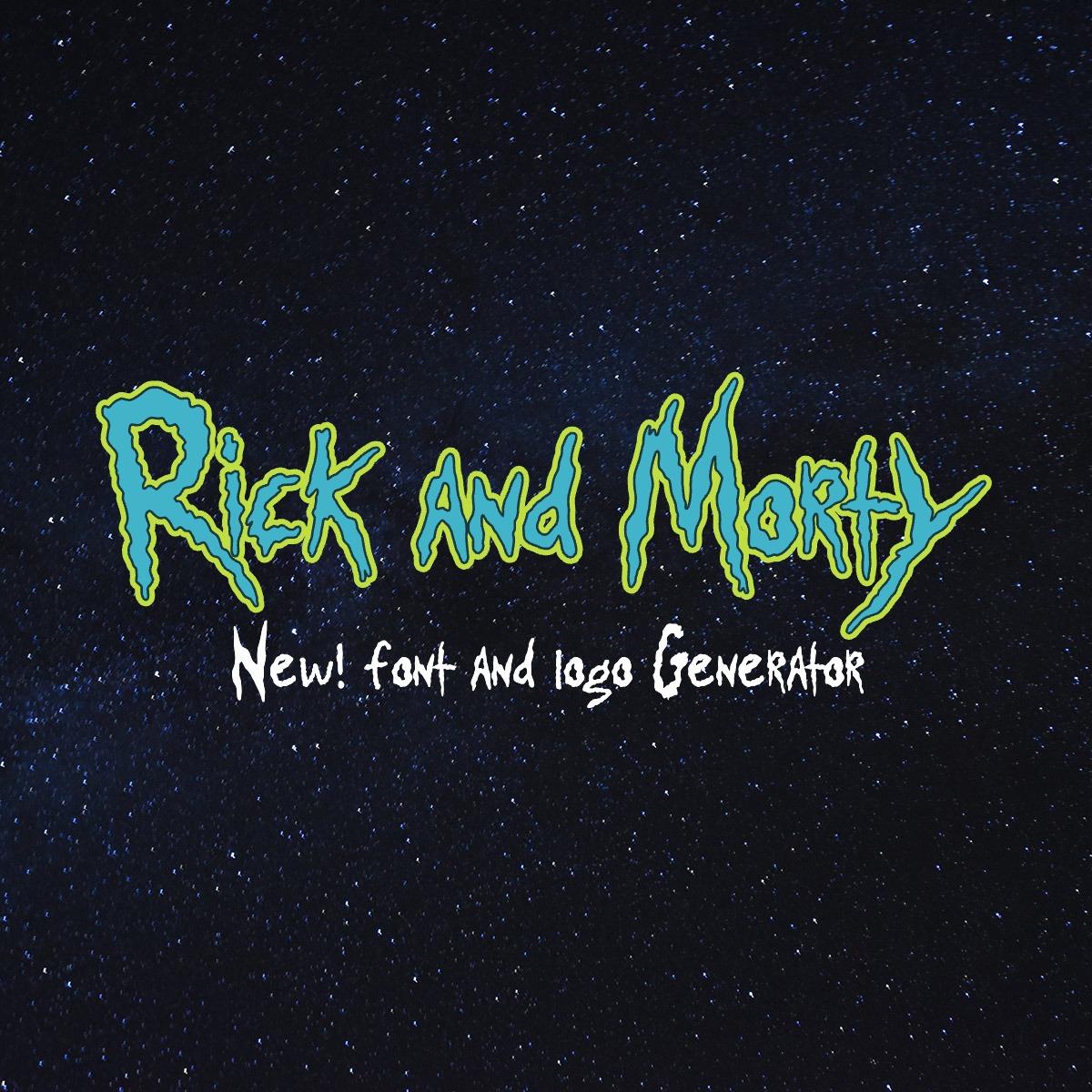
In case you were missing the lack of Pickle Rick memes in the last few years, the Rick and Morty Font Generator is here to fill the void
New! Now updated with revised letters, multi-language support, additional backgrounds and an optional portal effect! Few logos in animation history are as immediately recognizable as the Rick and Morty wordmark. That dripping, electric teal lettering — caged inside a spiked lime green outline and radiating an otherworldly glow — has become one of the defining graphic signatures of adult animation in the 2010s and beyond. This generator lets you recreate that look with your own text, layering up the same multi-outline effect used in the original title treatment. Two alternate background options are available, and all outlines and glows are done for you, so you only have to enter your text.
Type any word or phrase into the text field and hit Generate. The generator renders your text in the same custom hand-lettered font used across official Rick and Morty branding, complete with the show’s three-layer outline treatment: a crisp cyan fill on top, a thin dark teal stroke beneath it, and a thick lime green outline anchoring the whole thing with a soft outer glow.
The generator has two modes. Poster Art places your text near the top of the canvas against the show’s signature key art background — the same starfield-and-alien-landscape composition you’ve seen on posters and merchandise. The Portal Background version centers your text over the green swirling portal, which tends to work better for longer phrases or anything you want to feel more immersive.
Text wraps automatically if it would extend off the canvas, and the font scales down as needed so nothing gets cut off. Case is preserved exactly as you type it — the show’s logo uses mixed case, and the generator respects that.
The Rick and Morty Logo: A Design That Earns Its Chaos
The title lettering for Rick and Morty was designed to communicate instability on purpose. The organic, irregular letterforms — full of drips, spurs, and unexpected angles — mirror the show’s core tension between scientific brilliance and complete moral disorder. It’s a font that looks like it was scrawled by someone brilliant and deeply unwell, which is a fairly accurate description of the show’s central character.
The color palette is equally deliberate. Cyan and lime green are not a combination you’d typically reach for in professional design — they’re garish, they vibrate against each other, and they demand attention. Against a dark background, that pairing produces an almost neon effect that reads immediately as both sci-fi and slightly dangerous. The outer glow extends that energy outward, giving the logo a radioactive quality that fits the show’s aesthetic of science gone wrong.
The multi-outline structure — fill, then thin dark stroke, then thick bright stroke — is a technique with roots in vintage comic book lettering. Comics have used layered outlines for decades to make text readable against busy illustrated backgrounds while also giving it a sense of physical weight and dimensionality. Rick and Morty brings that tradition into motion graphics and title design, where the same principles apply but with the added benefit of animation and glow effects that static print can’t achieve.
The Show’s Relationship With Pop Culture Parody
Rick and Morty was created by Justin Roiland and Dan Harmon and premiered on Adult Swim in December 2013. Its premise was initially a parody of Back to the Future — an eccentric scientist and his teenage grandson getting into impossible situations — but the show quickly evolved into something far more ambitious, using genre parody as a vehicle for genuine philosophical inquiry.
The series has systematically taken apart nearly every major genre and franchise in popular culture. Episodes have satirized zombie media, Inception-style dream logic, Purge-style dystopias, Jurassic Park, Blade Runner, and the entire Marvel and DC superhero industrial complex. The Simpsons connection runs even deeper — Roiland has cited it as a foundational influence, and the show’s willingness to let its animated world have real emotional stakes owes a direct debt to what The Simpsons established in the late 1980s and early 1990s. If you’re a fan of animated shows with their own distinctive visual branding, the Simpsons font generator recreates the look of another landmark in adult animation.
The show’s anime influences are also heavily documented. Season three’s “Ricklantis Mixup” drew direct comparisons to Akira in its urban world-building, and the series frequently borrows visual language from Japanese animation when it wants to signal that something has shifted tonally. The Akira logo generator captures the look of one of Rick and Morty’s most cited cinematic touchstones.
Video game parody is another recurring thread. The show has spoofed the logic and aesthetics of post-apocalyptic gaming — wastelands full of mutants, vault dwellers, and morally compromised survivors — in ways that feel especially pointed when you consider how much the show’s fanbase overlaps with gaming culture. For a look at another franchise that explores post-collapse Americana with its own iconic lettering, the Fallout font generator is worth a visit.